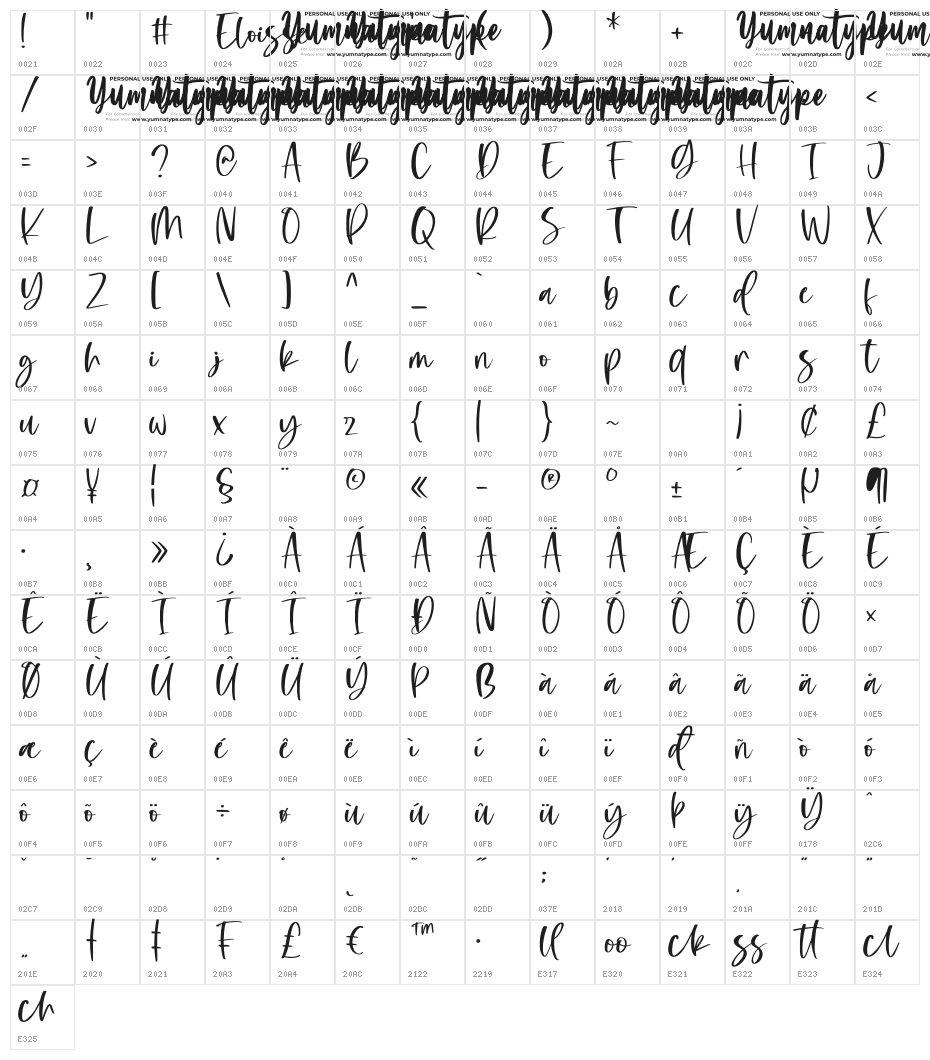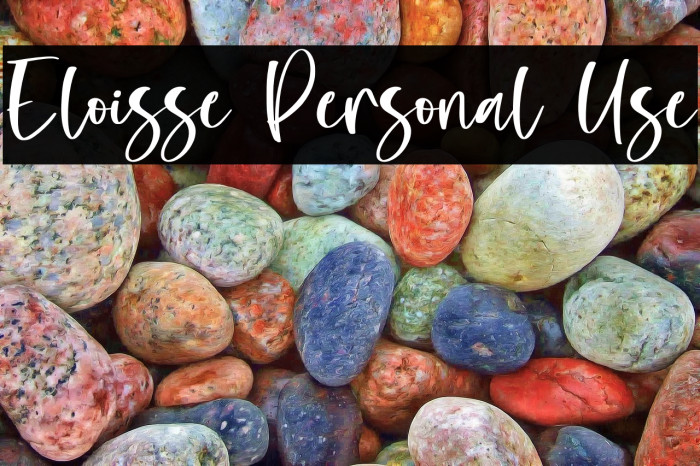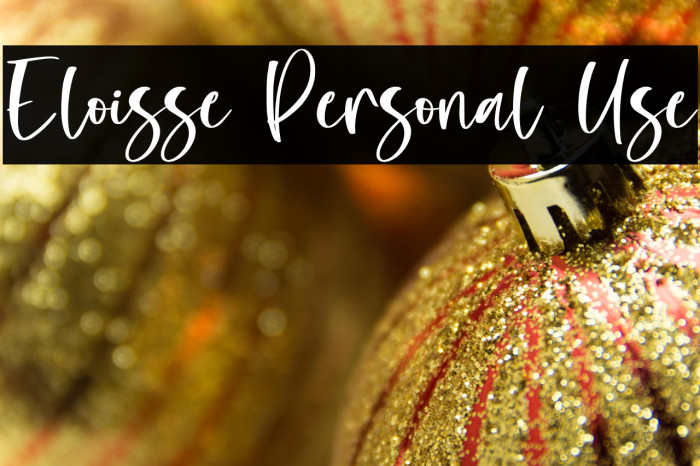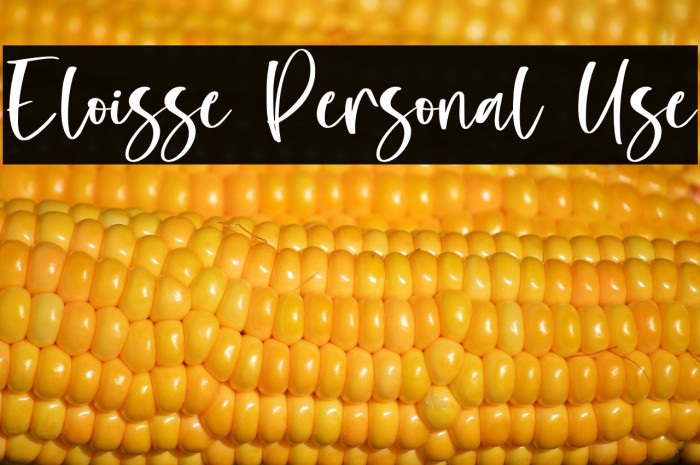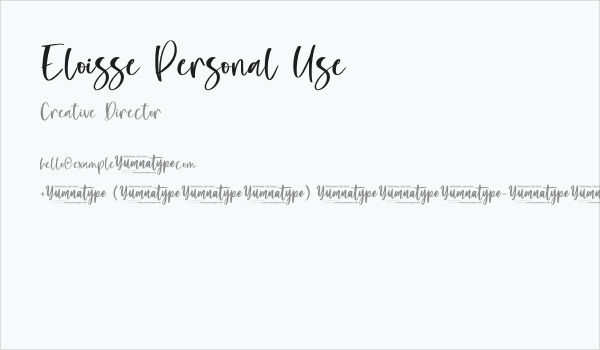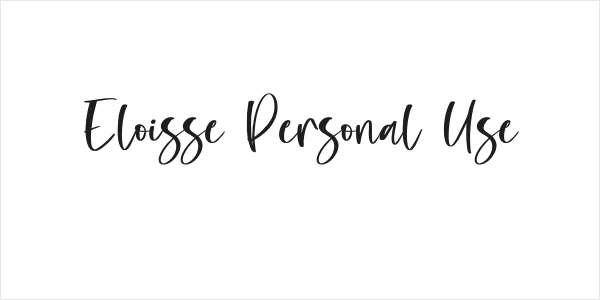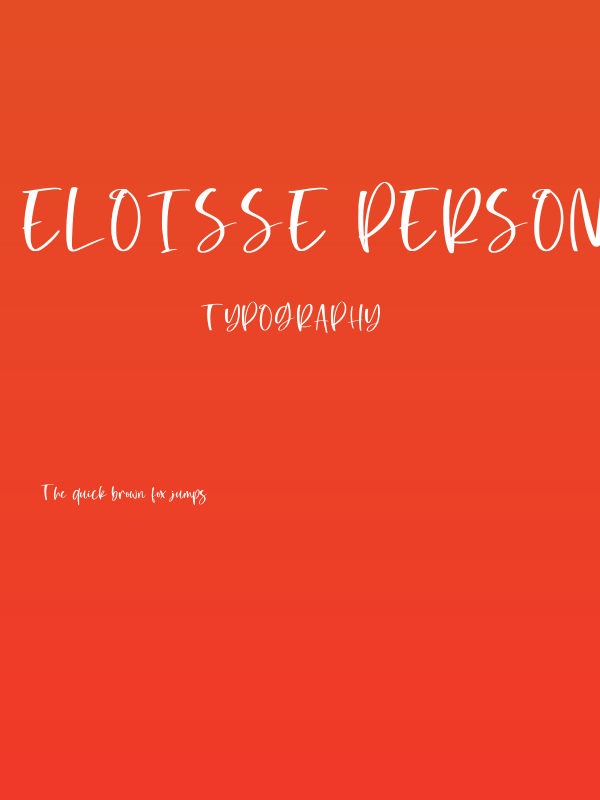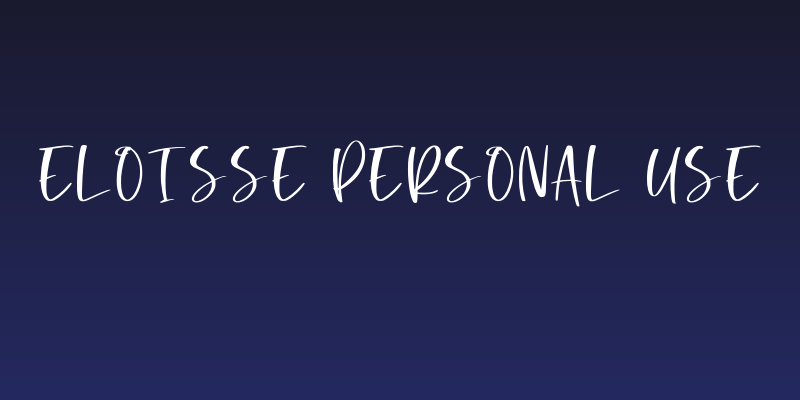
Eloisse Personal Use Font
Eloisse Personal Use Description
This font exudes a playful and artistic flair, characterized by its flowing, cursive style that mimics natural handwriting. The letters are elegantly connected, with a dynamic rhythm that adds a sense of movement and personality. The uppercase letters are bold and slightly elongated, while the lowercase letters are more rounded and compact, creating a harmonious balance. The font's strokes vary in thickness, providing a medium contrast that enhances its legibility while maintaining a stylish appearance. The overall design is modern yet timeless, making it versatile for various creative applications.
| Proposed Projects | Ideal for invitations, greeting cards, branding, and social media graphics where a personal touch is desired. |